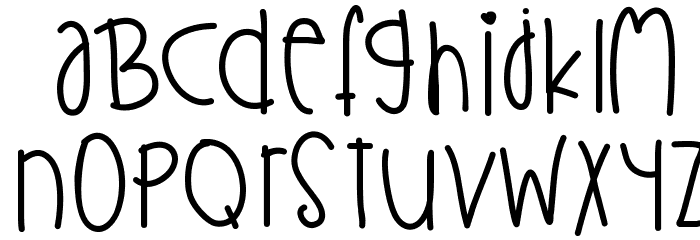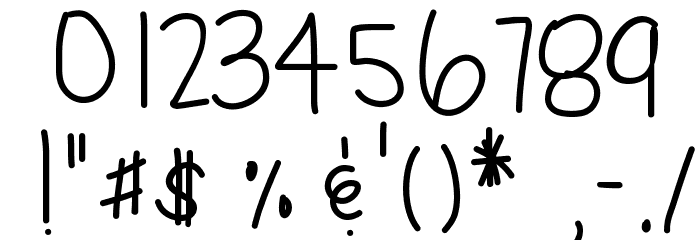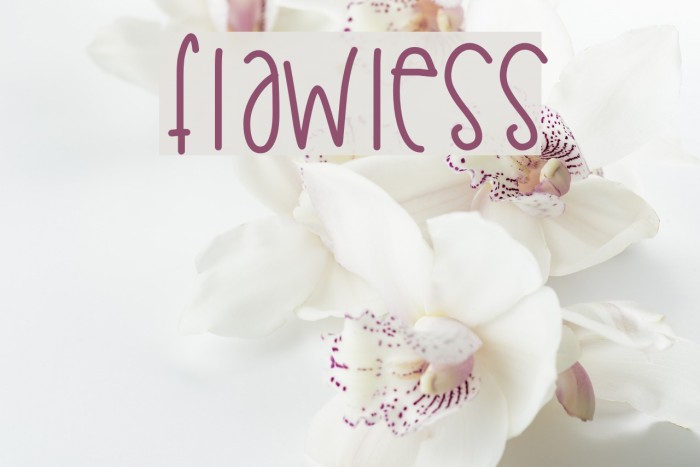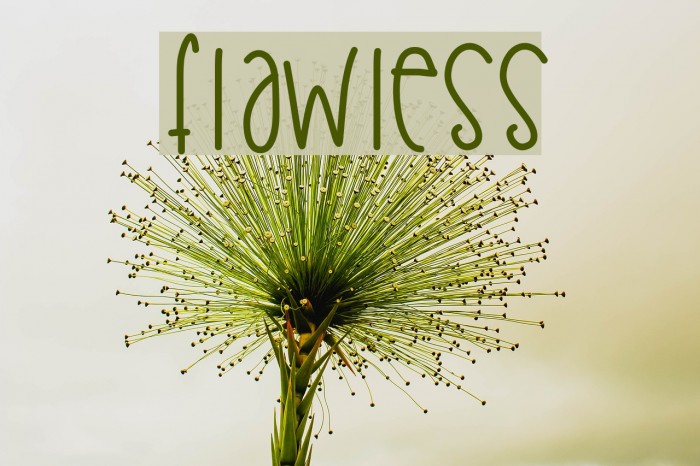
Flawless Font
This playful and whimsical font features a handwritten style with a casual and friendly appearance. The characters are slightly elongated with a consistent stroke width, giving it a uniform look. The letters have a smooth, rounded quality, and the overall design is informal yet legible. The numbers and special characters maintain the same playful aesthetic, making it suitable for creative and fun projects. The font's unique style adds a touch of personality and charm, making it ideal for projects that require a lighthearted and approachable feel.
- Proposed Projects: Ideal for children's books, greeting cards, playful branding, and casual invitations.
- Overall Style: Playful
- Use Case: Headlines, Logos, Informal Text